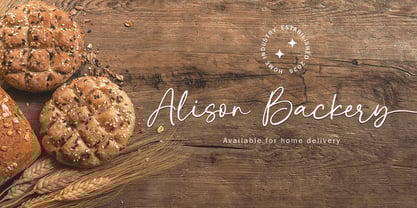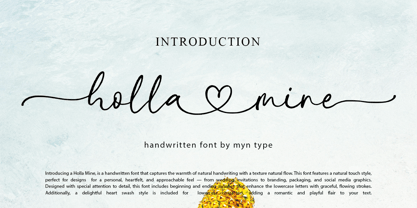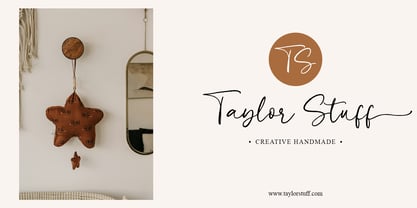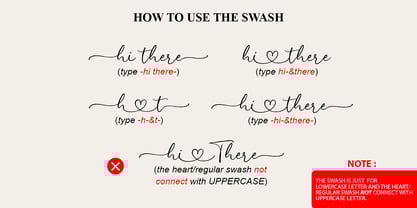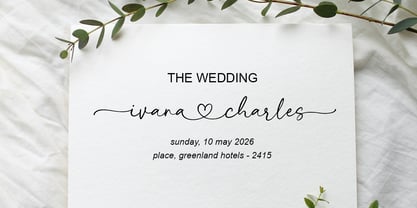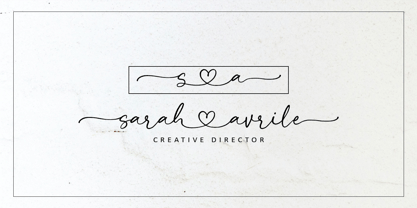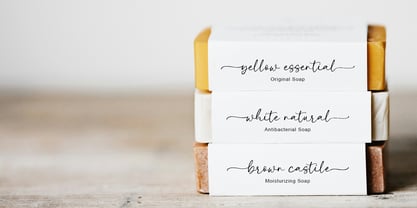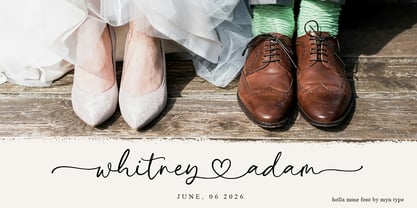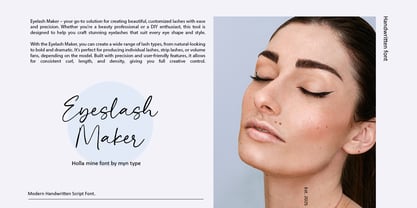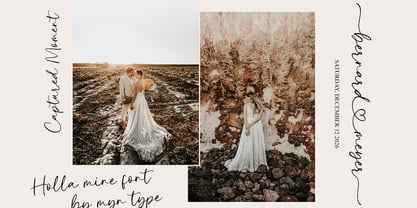
Holla Mine
by Myn Type
The Holla Mine Font Family was designed by Suyuti Amien and published by Myn Type. Holla Mine contains 1 styles.
Just Coming, Holla Mine Font!
Holla mine is handwritten font that captures the natural texture of brush with pretty flow.
This font features with beginning, ending, and heart swash, making it perfect for designs that call for a personal, heartfelt, and approachable feel, from logo, wedding invitations, title book, cover, magazine, branding, packaging, and social media graphics.
Whether you're creating a love note, logo, or quote, this font brings a genuine, hand-drawn elegance to your designs.
How to use swash, you can see the page 10 & 12 of preview image. PLEASE NOTE, The swash is just for lowercase letter and the swash can’t connect with UPPERCASE letter.